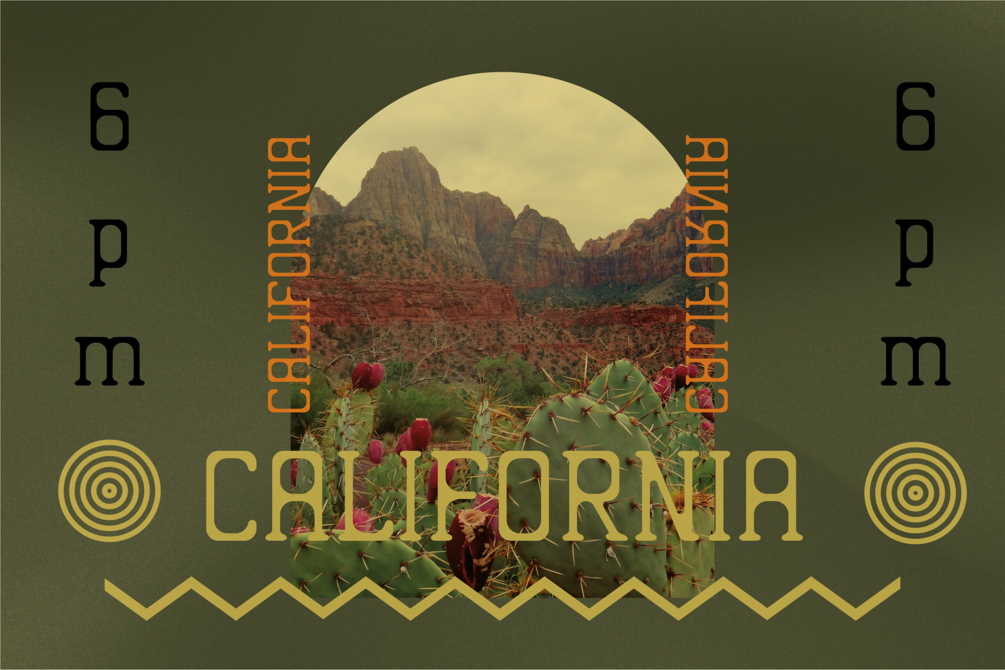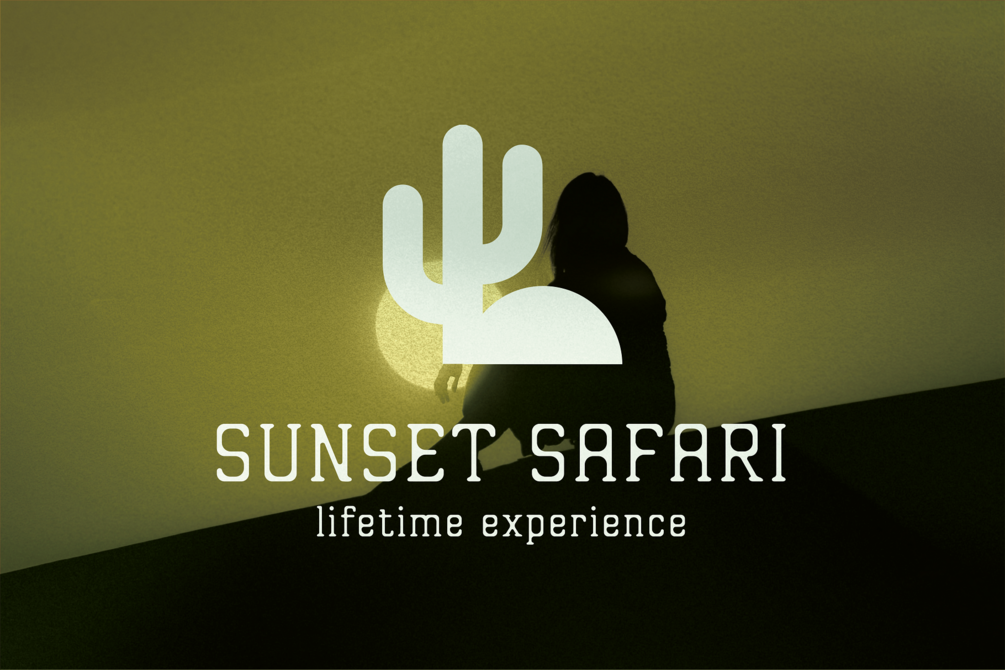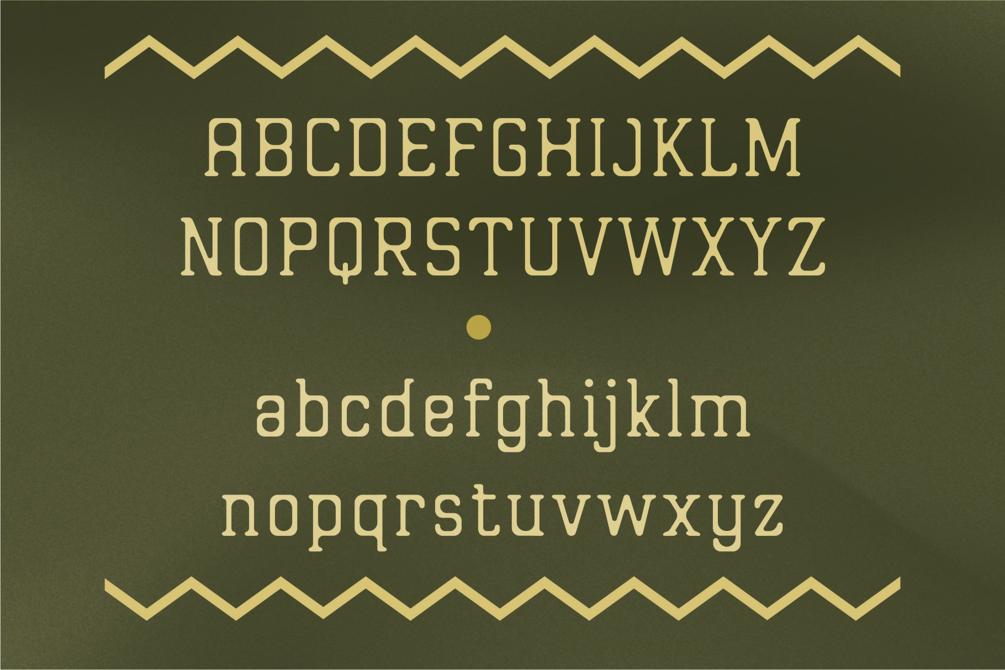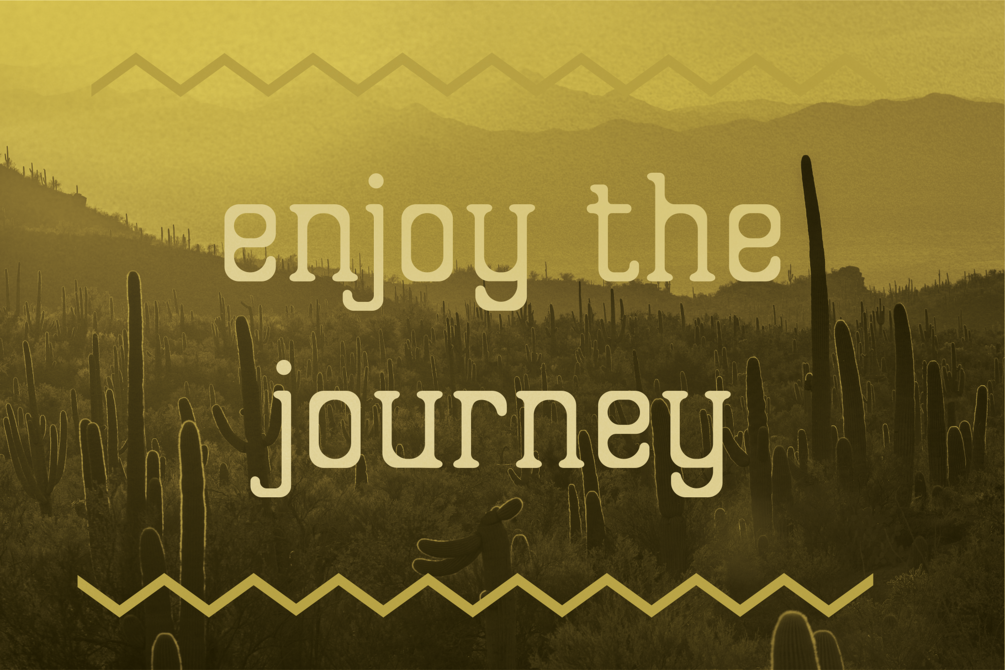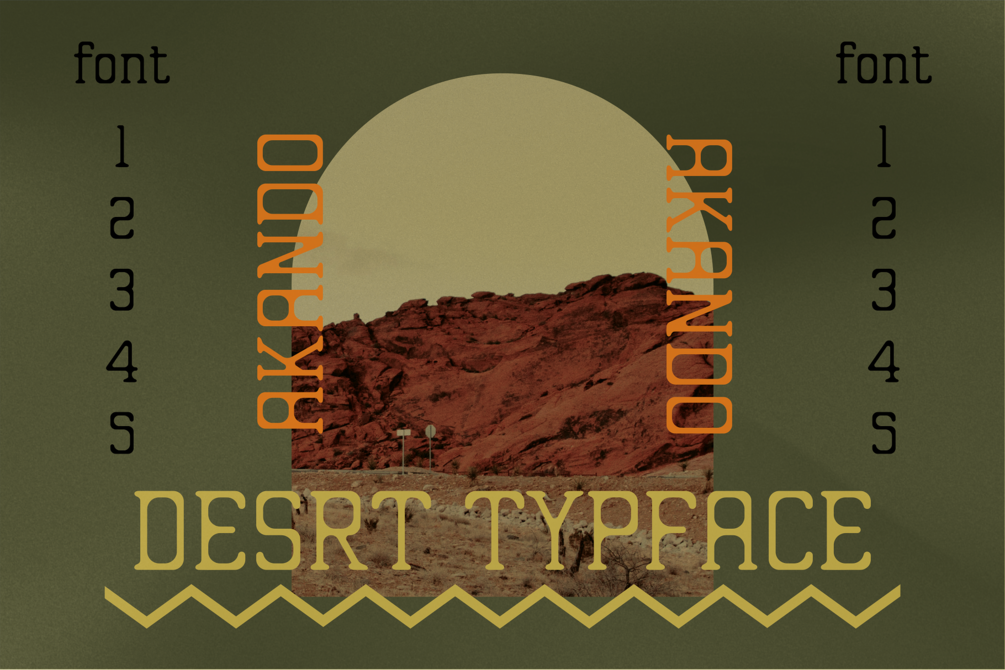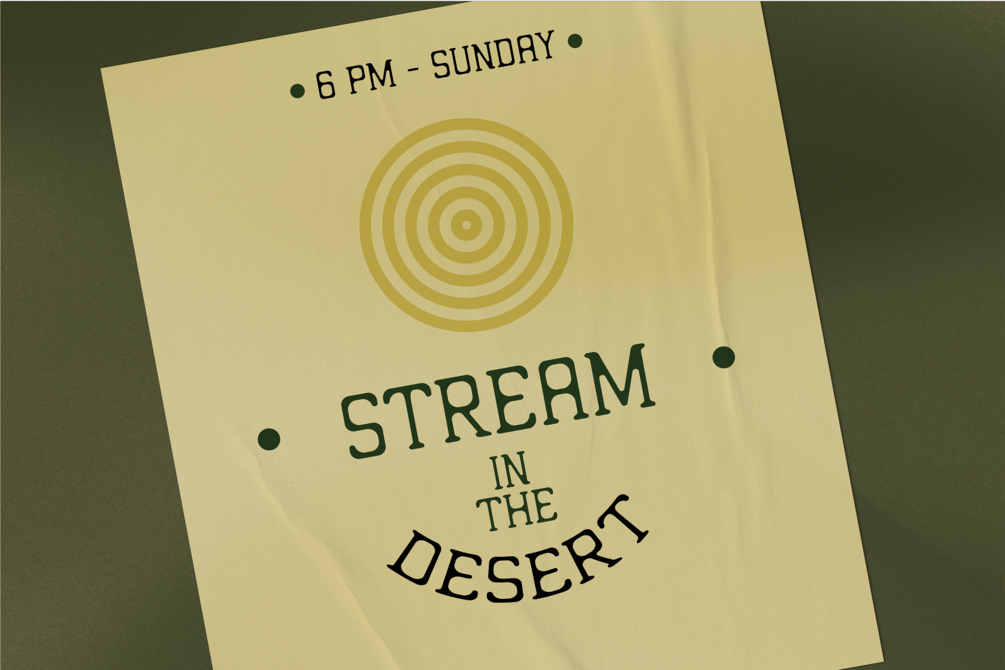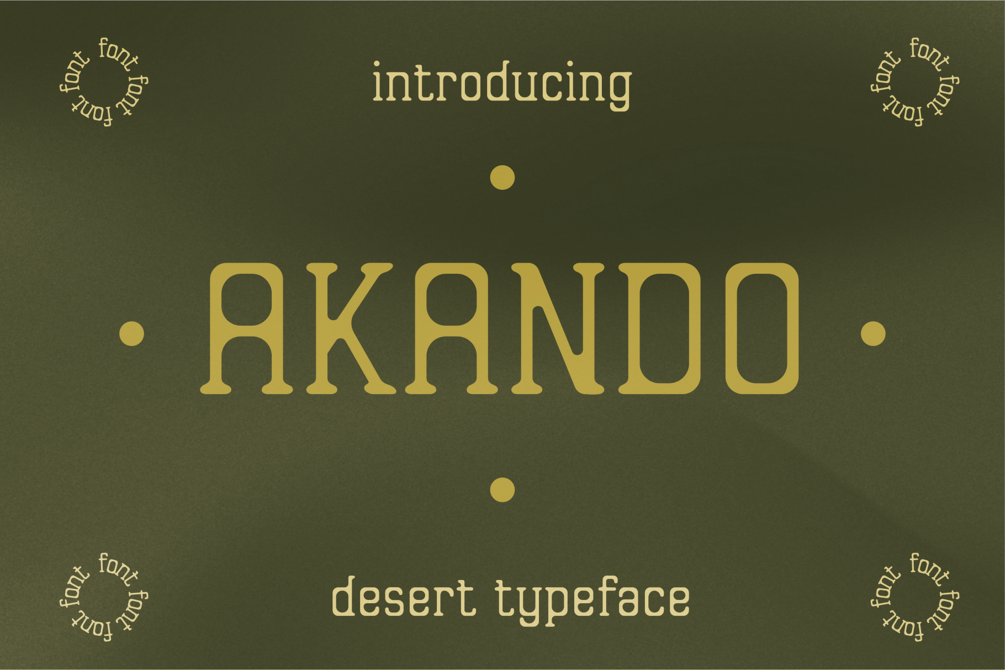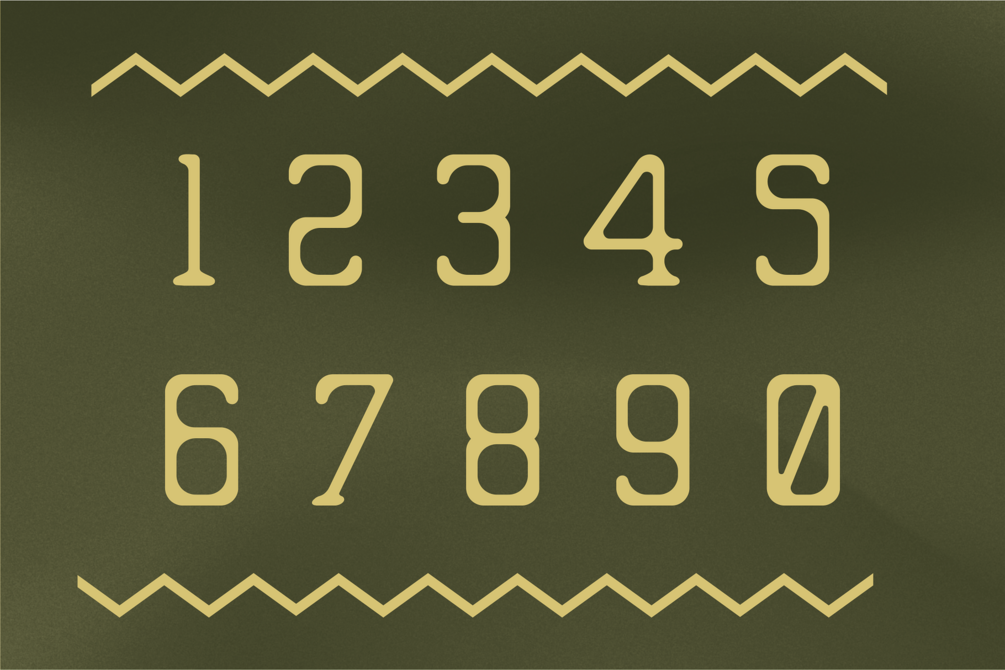
Akando - Desert Typeface
Akando is a handcrafted typeface inspired by the beautiful American Southwest. Akando is a fully functional font including numbers, punctuation, and characters. This rounded typeface can be used for labels, logos, packaging, clothes, menus, stationary, and much more. Check out the preview images to get a feel for it.